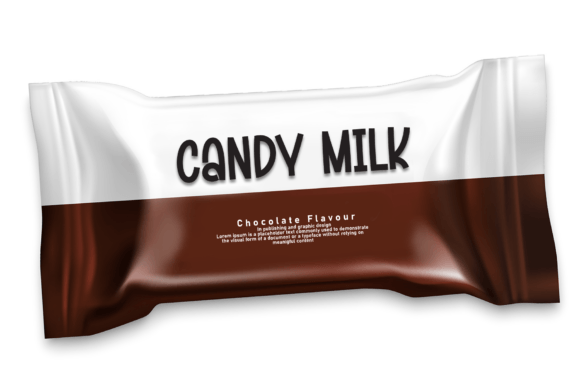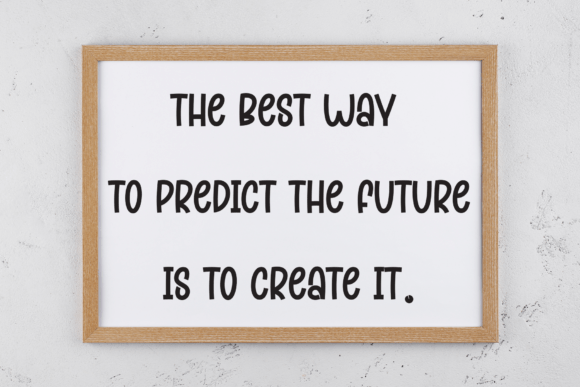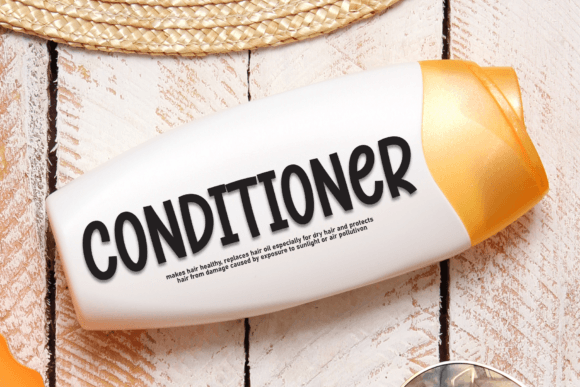
Nice Boy Font
Nice Boy is a charming handmade font that features playful, rounded letters. Its friendly style makes it perfect for designs that need a warm and inviting touch. This font is great for children's books, greeting cards, and fun posters, adding a cheerful vibe to any project.